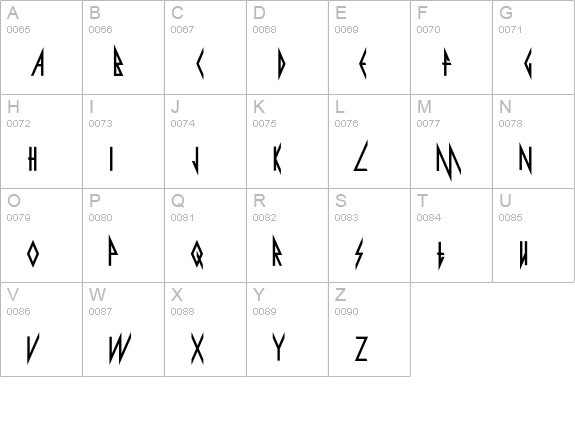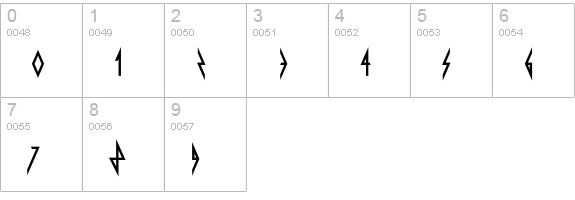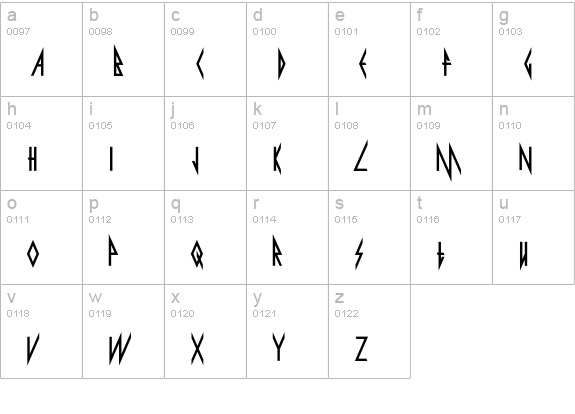
Pyrite Font Details
The Pyrite font is a striking and versatile typeface that exudes a sense of modern elegance and sophistication. With its clean lines and unique design elements, Pyrite is sure to make a statement in any project. This font is perfect for creating eye-catching headlines, logos, and branding materials. What sets Pyrite apart is its seamless combination of classic charm and contemporary flair, making it a go-to choice for designers looking to add a touch of style to their work. Whether you're working on a website, advertisement, or print project, Pyrite is sure to elevate your design to the next level. Best of all, Pyrite is available for free download at FontsMarket.com, making it accessible to designers of all levels. Don't miss out on the opportunity to add this stunning font to your collection and bring your creative vision to life with Pyrite.